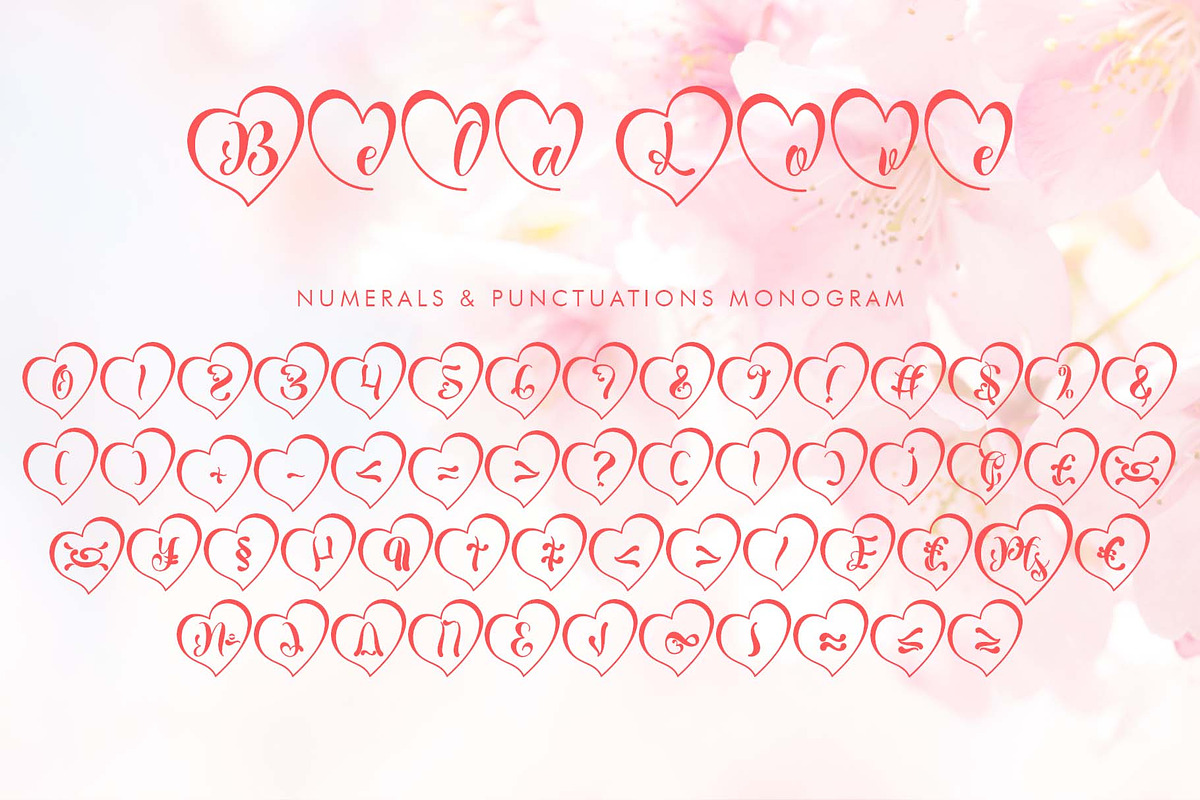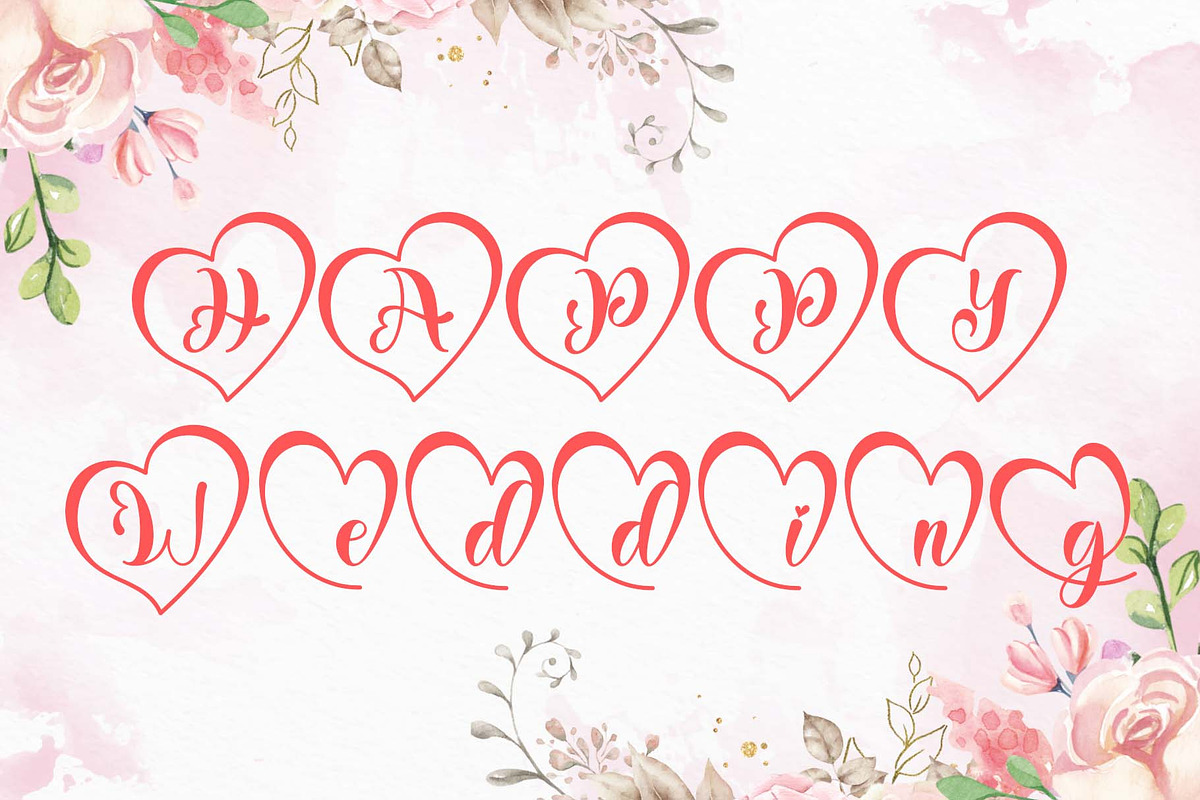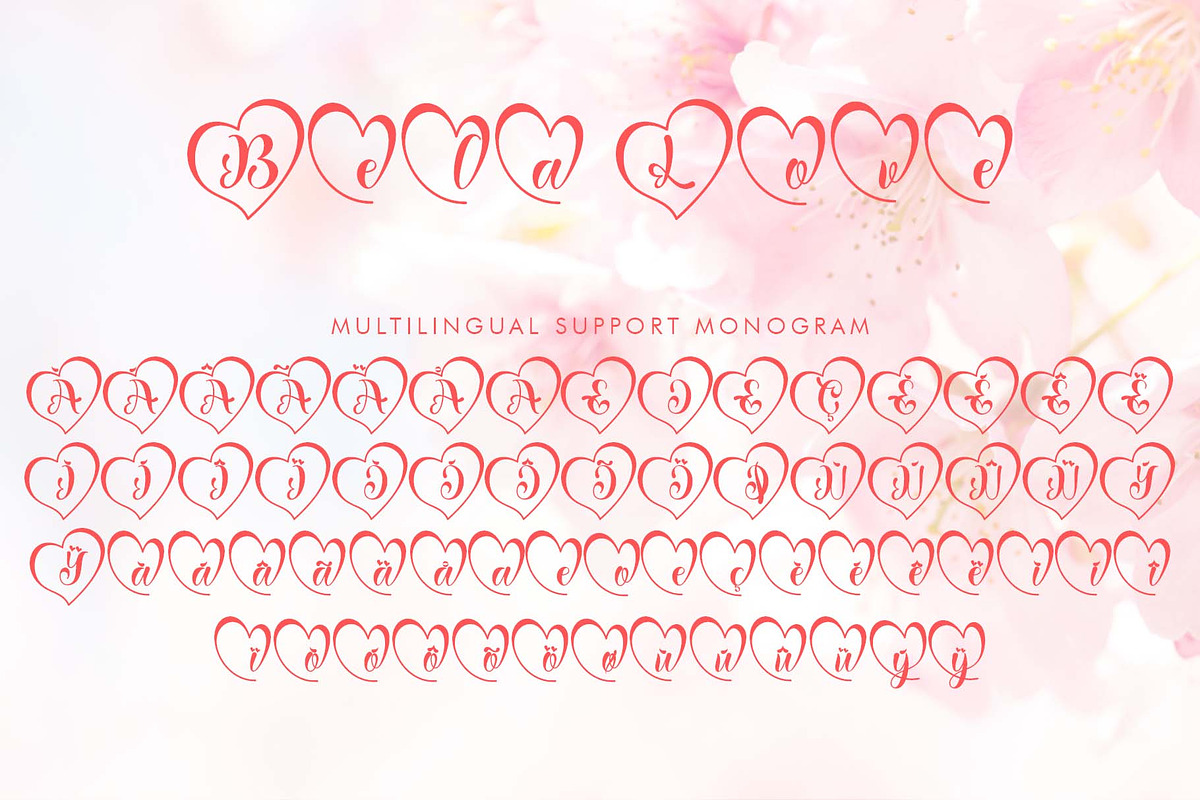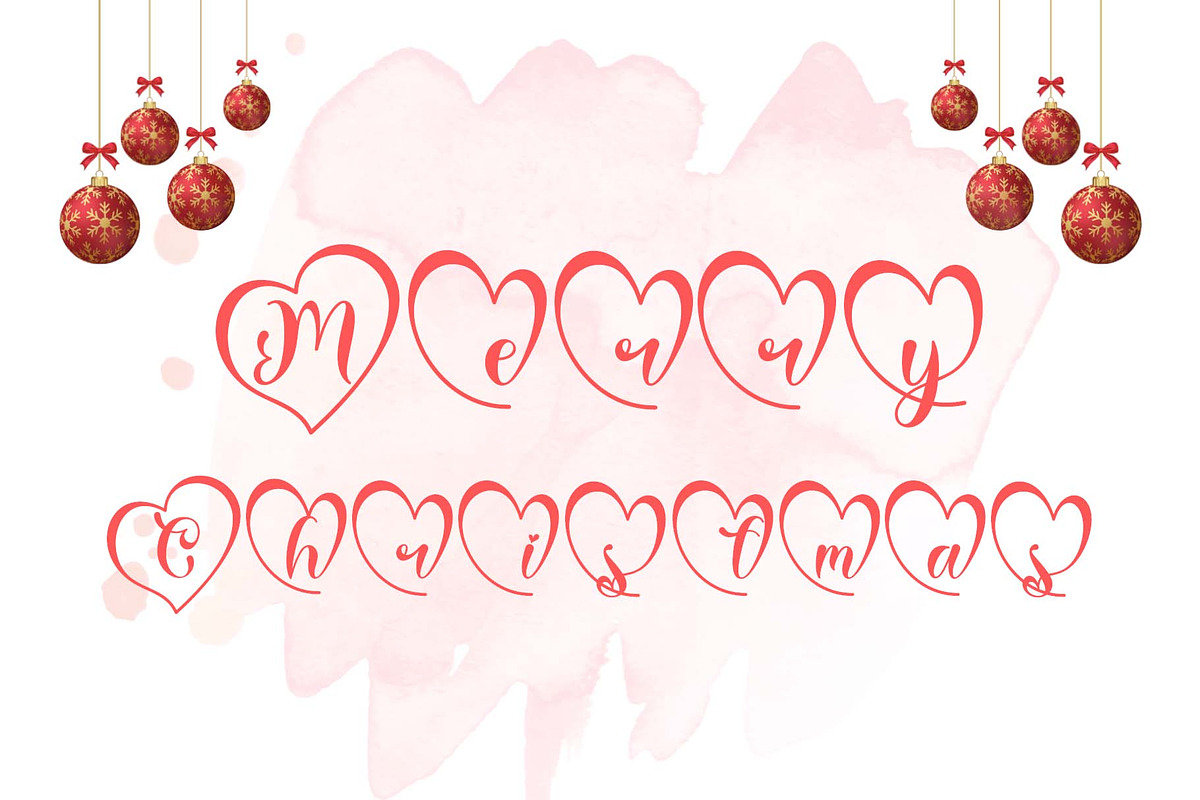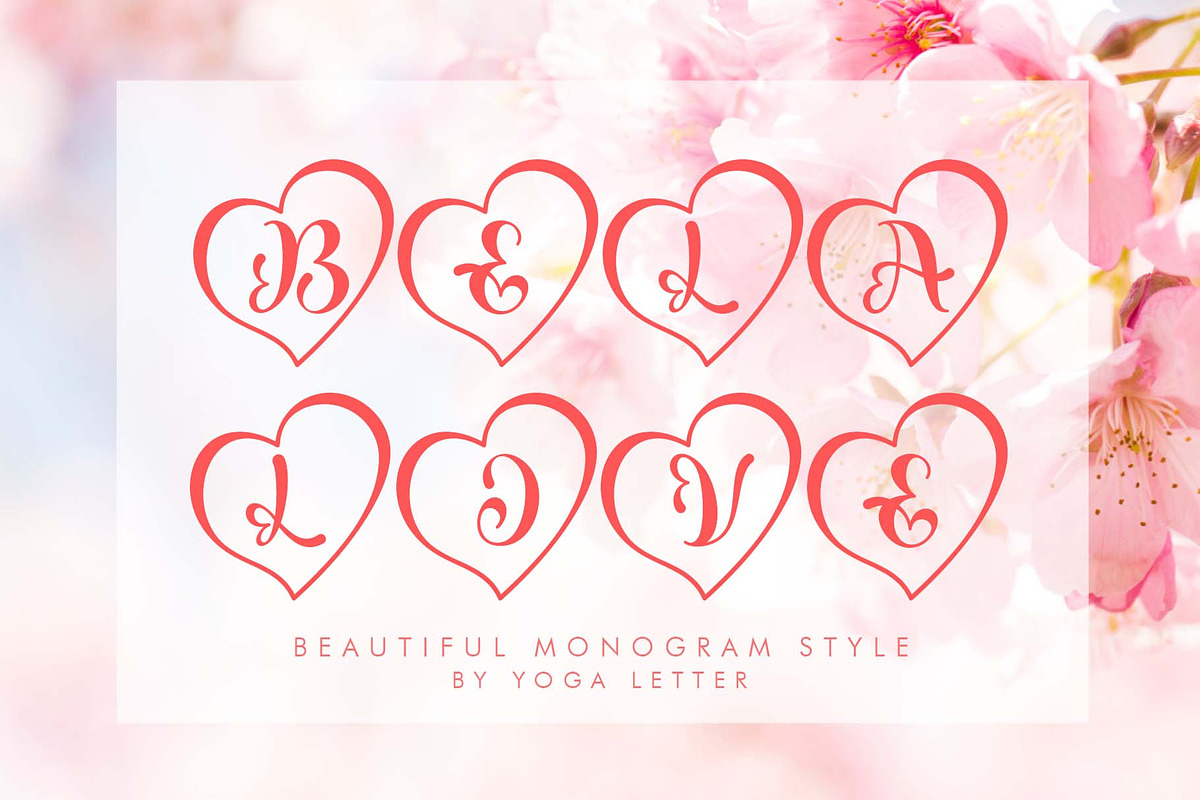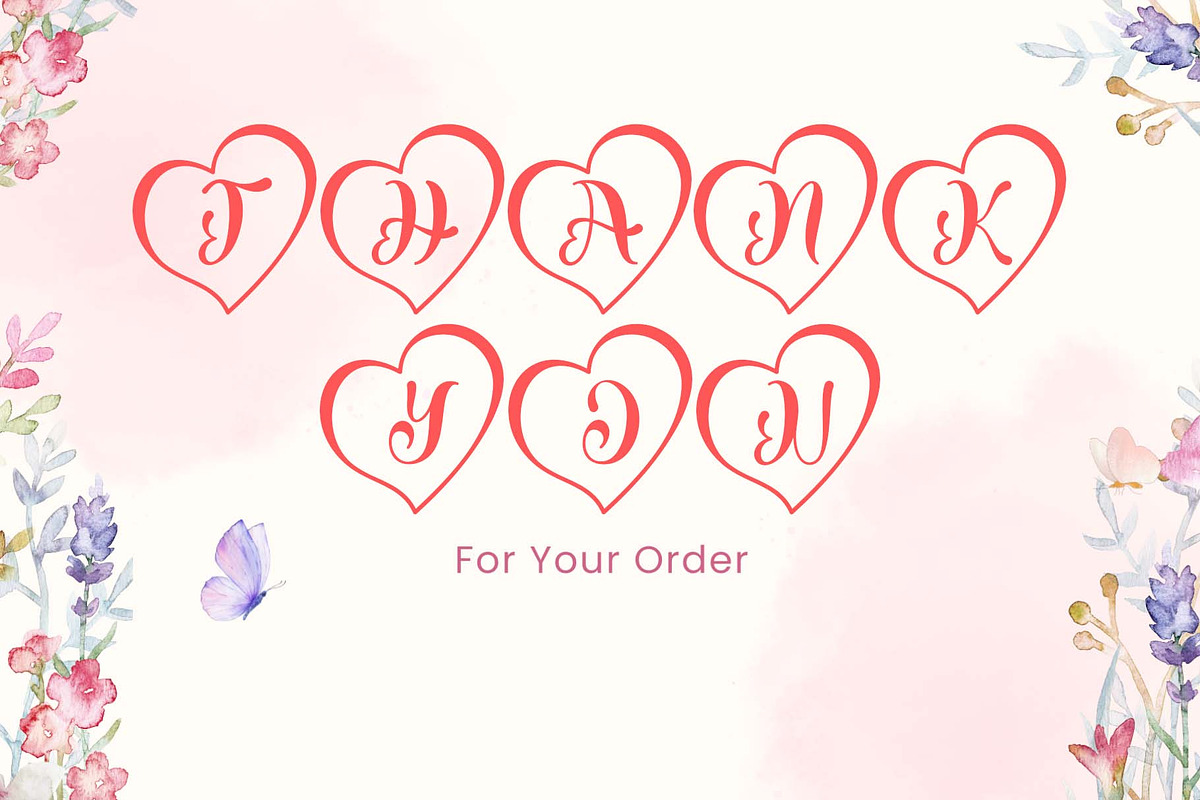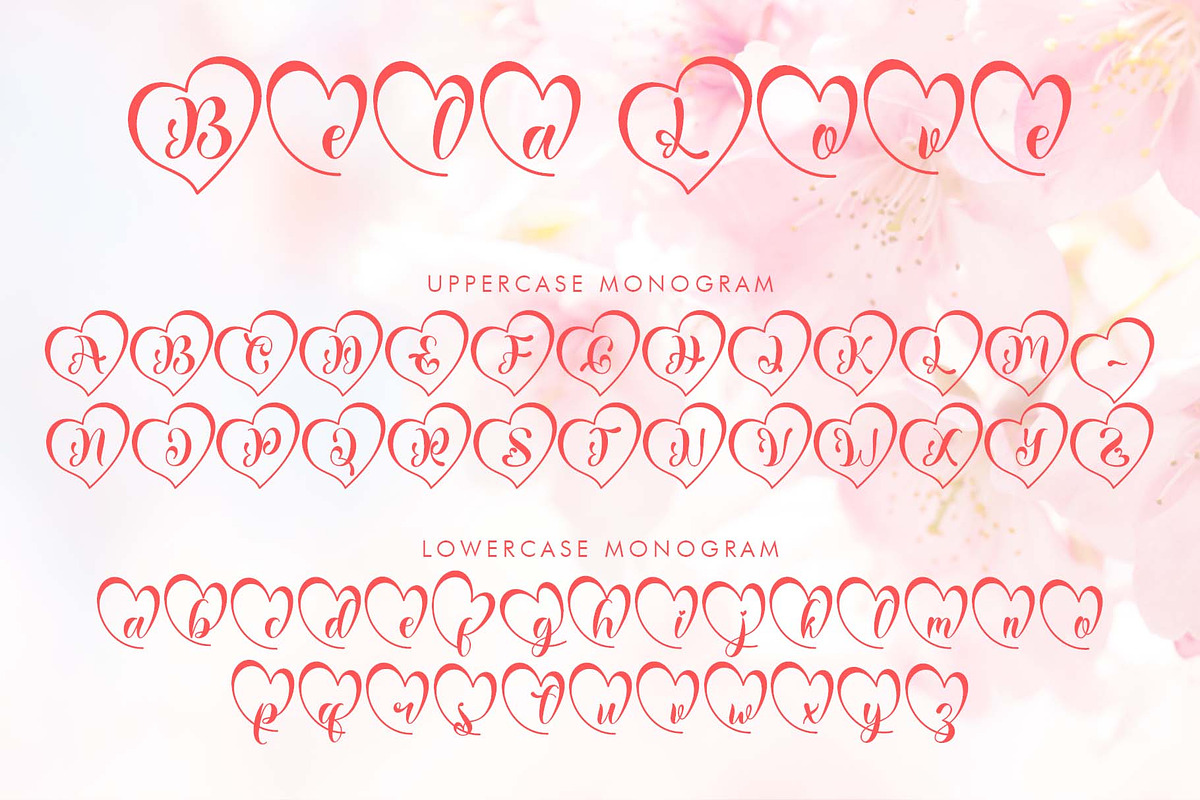
Bela Love
"Bela Love" is a beautiful and cute monogram font with love shapes on each letter. It features uppercase and lowercase letters, numerals, punctuations, and multilingual support. It's perfect for Christmas greetings, wedding invitations, engagement invitations, logos, stickers, banners, posters, prints, branding, autumn, fall, Thanksgiving, Valentine's Day, and more.